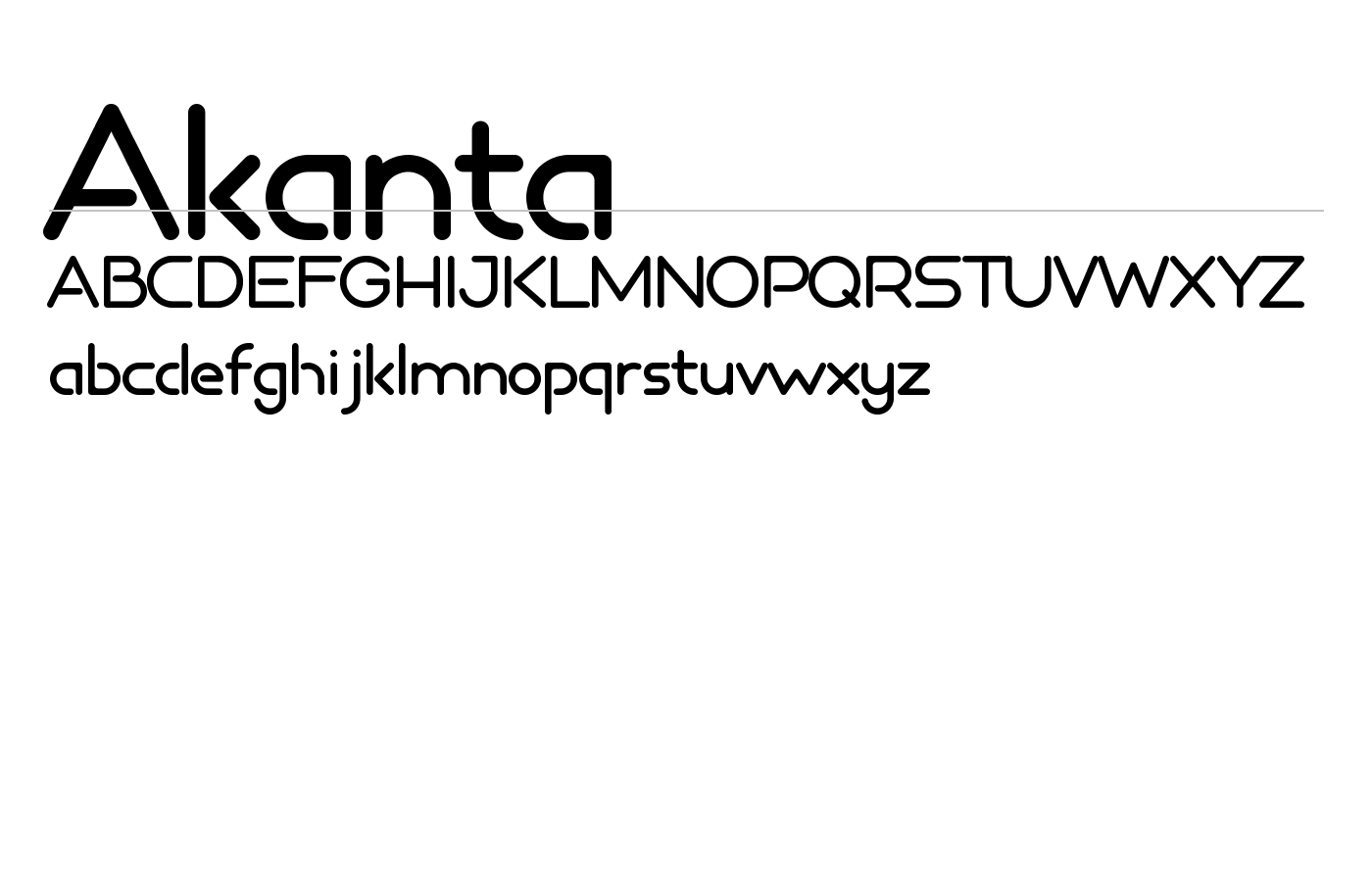
Akanta is a sleek, modern sans serif font with a clean geometric structure and subtle rounded corners that soften its appearance. Its medium weight and balanced proportions make it ideal for contemporary branding, digital interfaces, and stylish editorial projects where clarity and a touch of playfulness are desired. This font works well in headlines and logos, offering a fresh, approachable look without sacrificing professionalism.
Akanta Font
About Akanta Font
| Font family | Akanta Font |
| Designer | Swadharma Wiyastana |